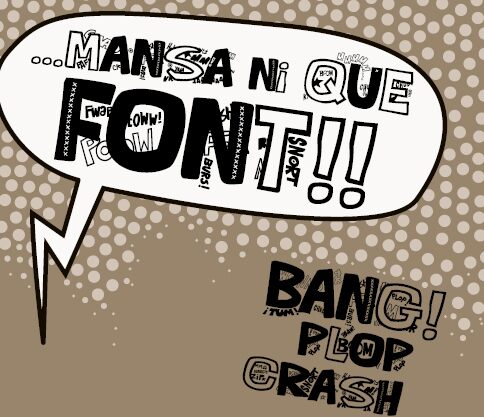
QUEFONTita!-Black by Felipe Millon C. is a free illustrated cartoon display font built from oversized, irregular block letters. Solid fills, rough outlines, crosshatching, comic sound effects, and tiny doodles turn the lettering into a lively collage rather than a uniform set.
Comic publishing is its clearest home. The punchy forms also suit children's packaging, game graphics, and music merchandise by sharing the fun of surrounding artwork. Across these settings, bursts, scribbles, and inset marks link the words to subjects full of noise, jokes, and visual mischief.